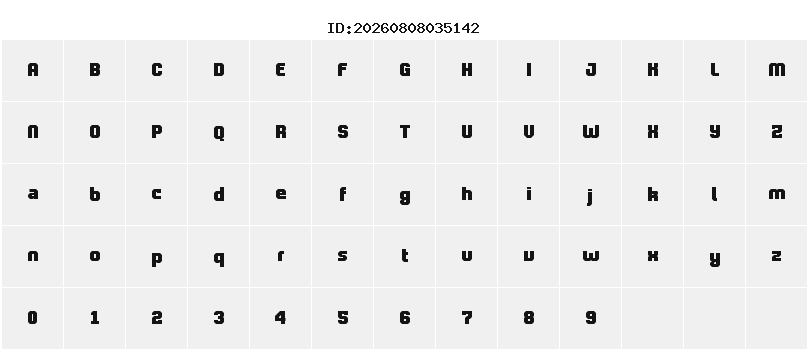
• Font Name: ProLamina
• Designer: Alejandro Cabrera Avila
About ProLamina.ttf
ProLamina.ttf is a modern, elegant sans-serif font designed for ultimate readability and visual harmony. Perfect for branding, headlines, web design, and print materials.